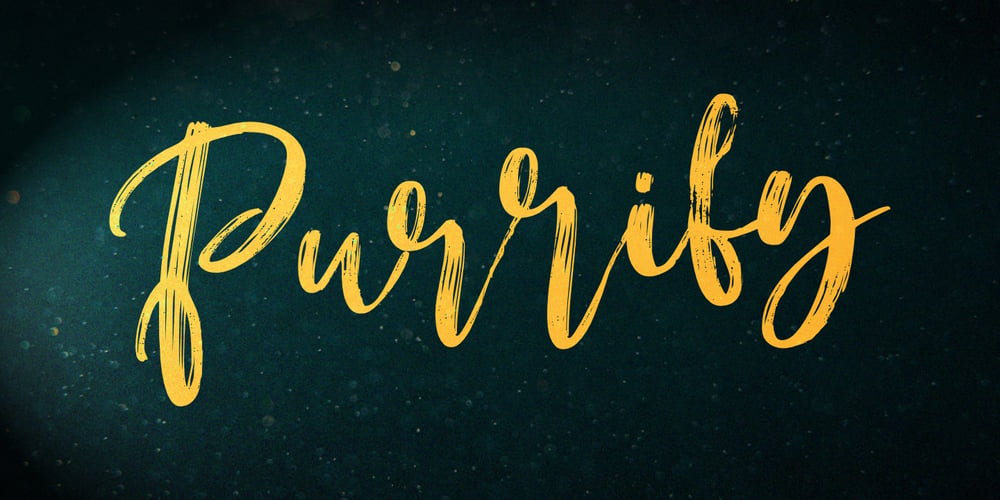
Purrify Font Family was designed by Aldy Sidik and published by Epiclinez. Purrify contains 1 styles and family package options. Purrify is a brush script font with cool textures. With its flowing curves and dynamic strokes, this font is suitable for creating eye-catching headlines, captivating logotypes, striking product branding, and engaging movie titles.Embrace the dynamic energy of Purrify and watch your designs come alive like never before!Purrify features : Standard Latin Numbers, symbols, punctuations, and ligatures Multilingual Support. Fully accessible without additional design software Simple Installations Works on PC & Mac Thank You